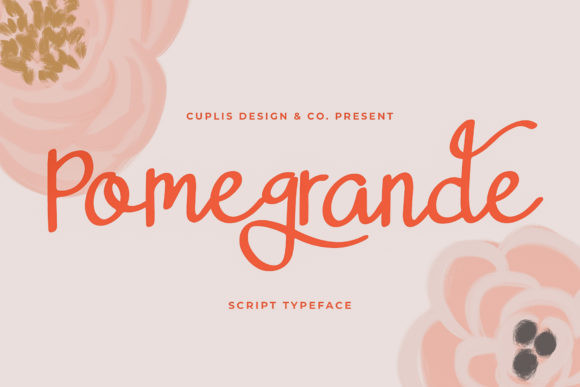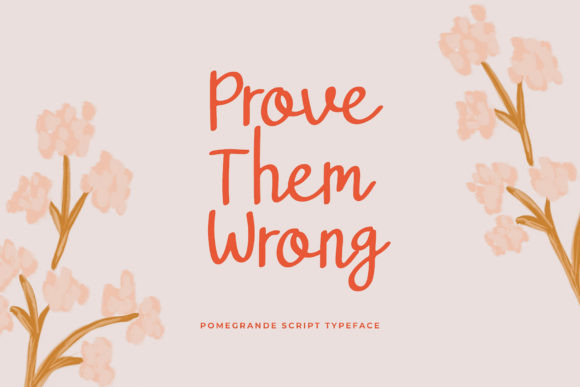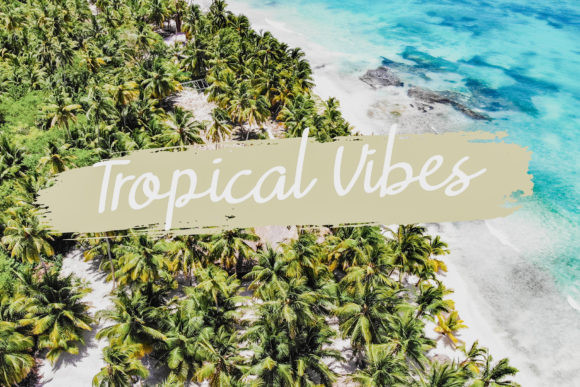
Pomegrande Font
Pomegrande is a simple, delicate and beautiful handwritten font. It has beautiful and well balanced characters and as a result, it matches a wide pool of designs. Pomegrande features a varying baseline, smooth lines, gorgeous glyphs and stunning alternates.